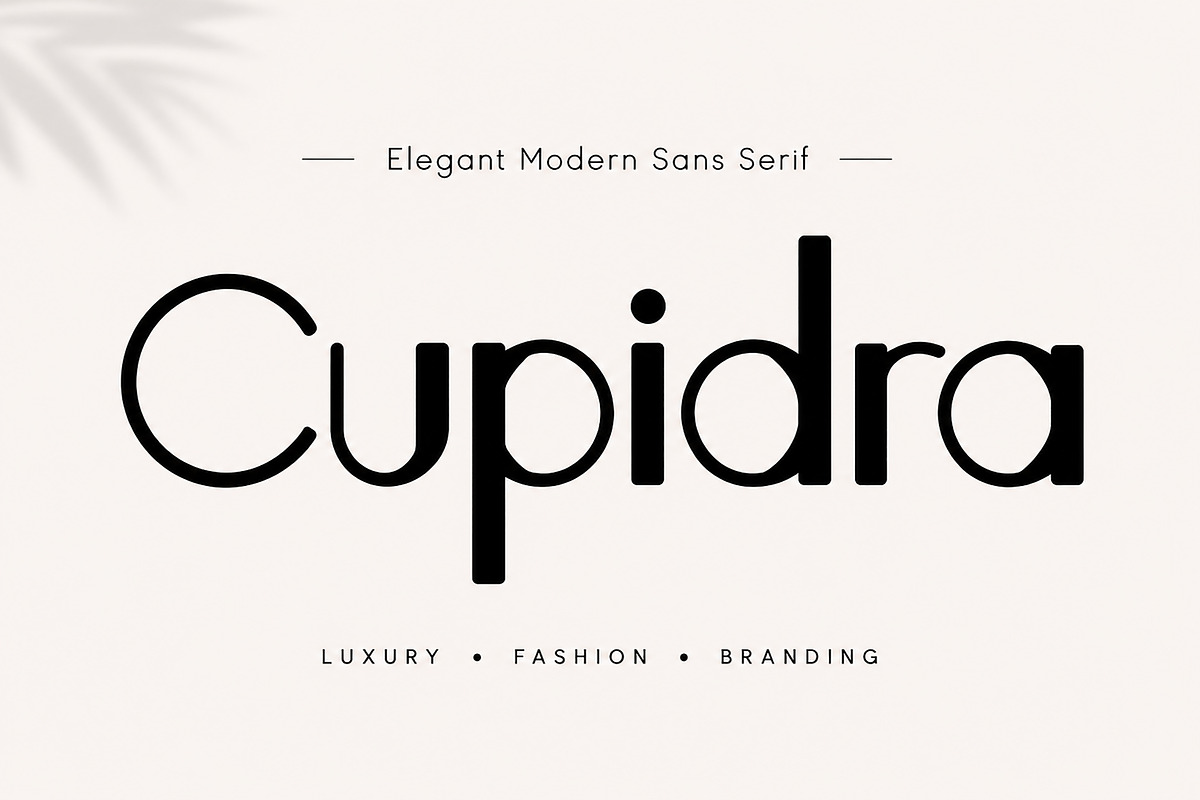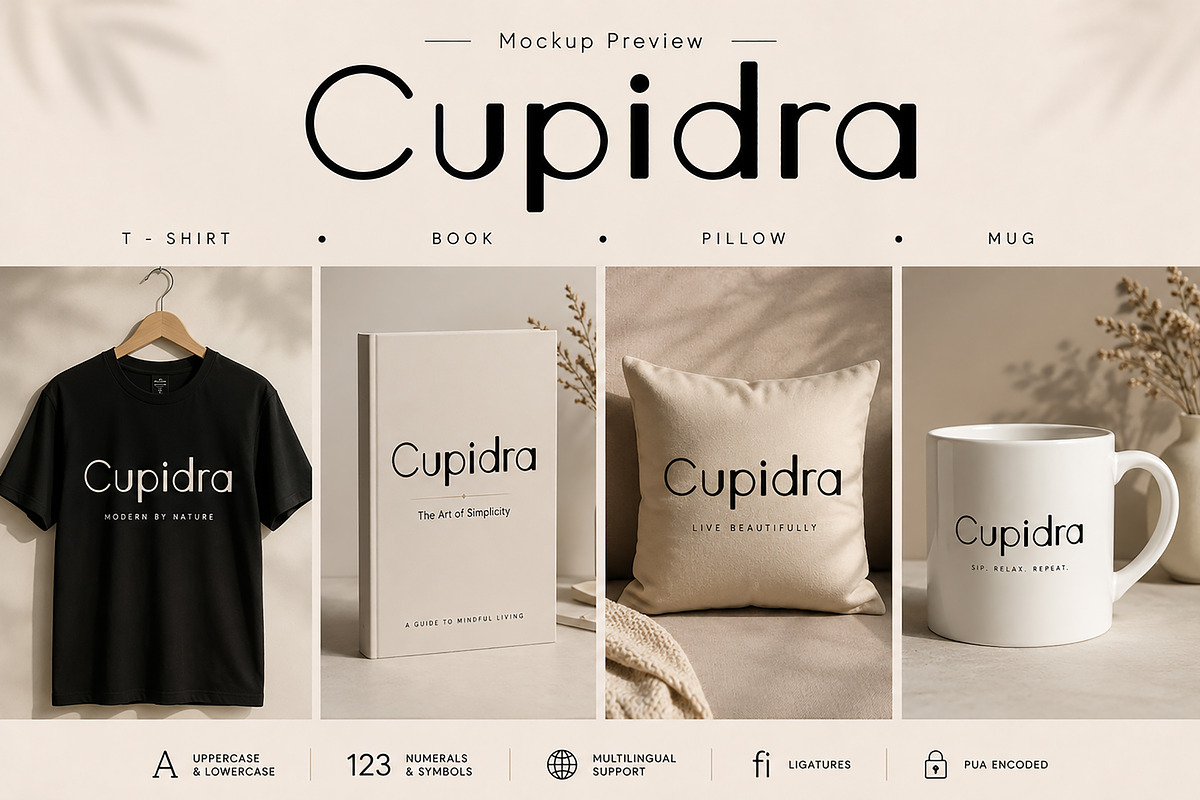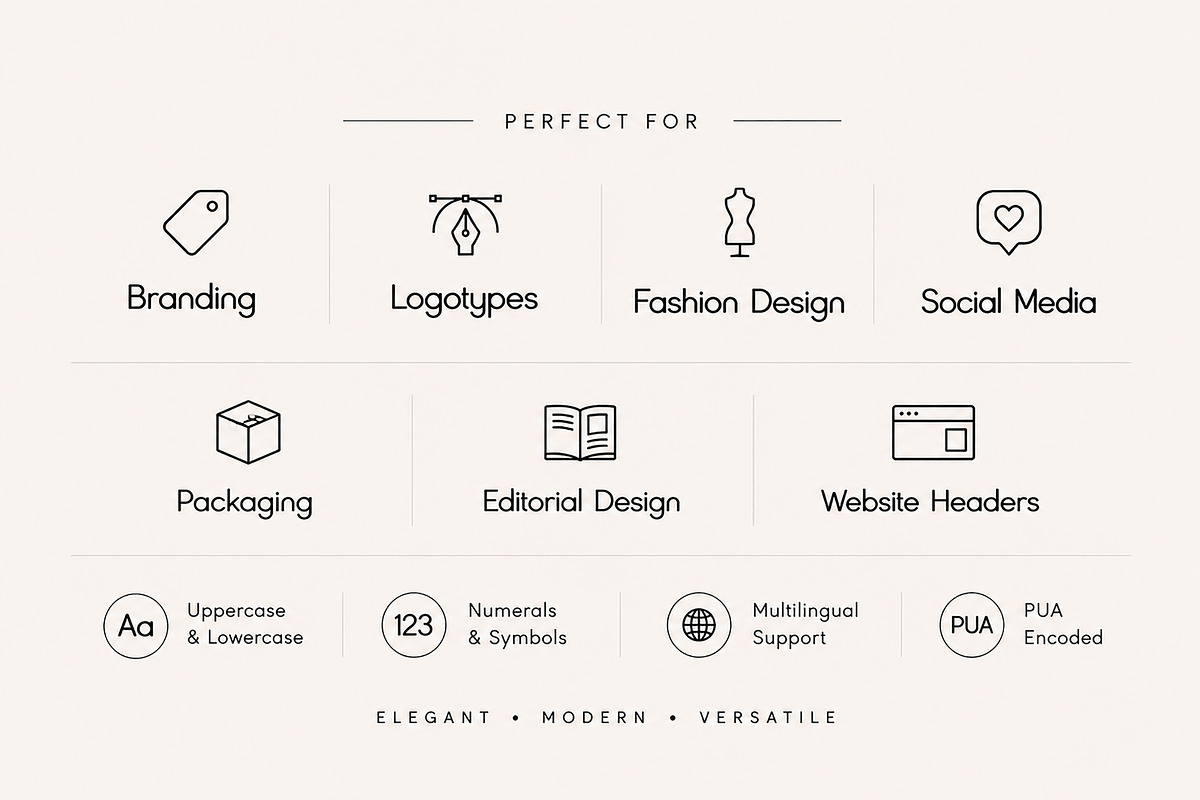
Cupidra
Cupidra – Elegant Modern Sans Serif
Cupidra is a sleek and elegant modern sans serif typeface crafted with clean geometric curves and a refined minimalist aesthetic. Designed for luxury branding, fashion editorials, logo design, packaging, and contemporary visual identities, Cupidra delivers sophistication with simplicity.
Its balanced letterforms and stylish proportions make it perfect for creating premium, timeless, and high-end designs.
Introducing Cupidra, a modern elegant sans serif typeface designed to bring sophistication, minimalism, and luxury into your creative projects.
With its smooth curves, geometric structure, and clean contemporary style, Cupidra is carefully crafted for designers who seek a stylish and versatile typeface for branding and editorial work.
Whether you're designing logos, fashion campaigns, beauty packaging, social media content, website headers, or magazine layouts, Cupidra provides a polished and premium visual presence.
Its minimalist yet expressive character makes it ideal for luxury brands, feminine branding, and modern lifestyle aesthetics.
• Branding
• Logotypes
• Fashion Design
• Beauty Products
• Packaging Design
• Editorial Layouts
• Social Media Graphics
• Website Headers
• Invitations
• Modern Advertising
• Uppercase & Lowercase
• Numerals & Punctuation
• Symbols Included
• Multilingual Support
• Clean Geometric Style
• Elegant Modern Look
Cupidra is best suited for:
Luxury brands, fashion labels, beauty packaging, perfume logos, modern magazines, minimalist branding, and elegant digital content.